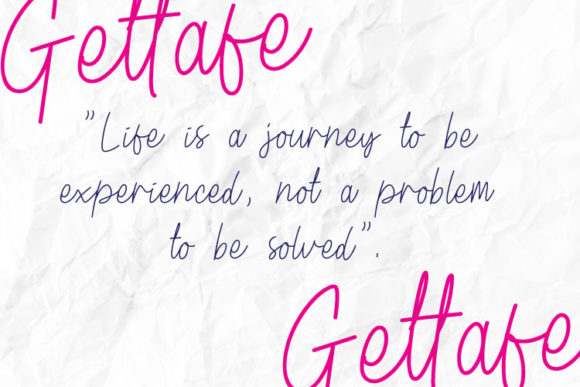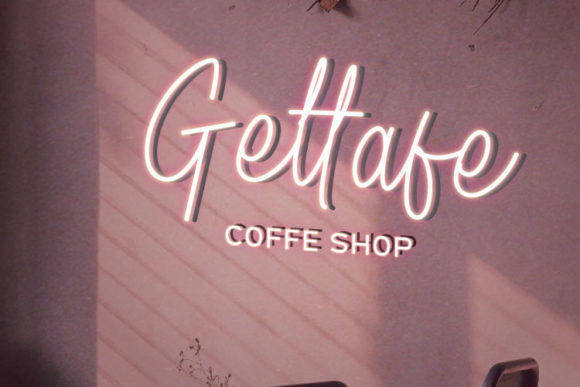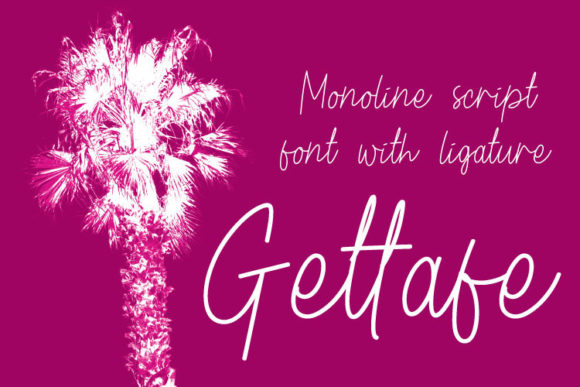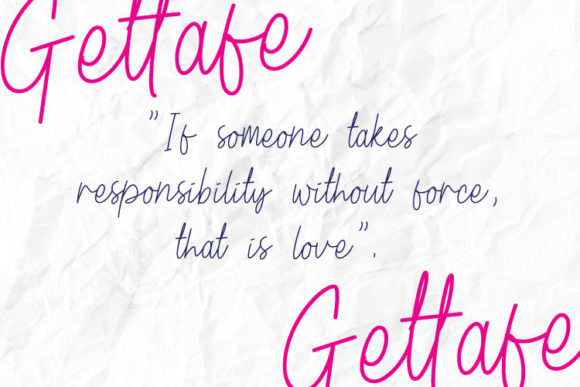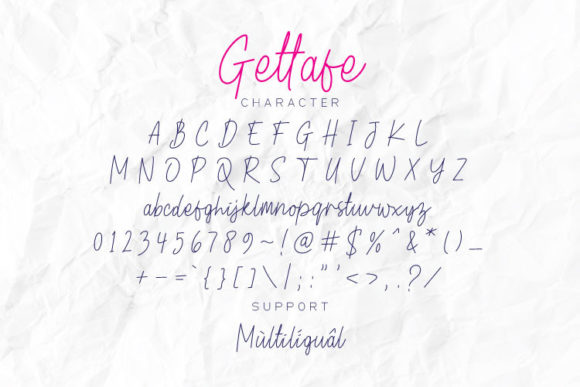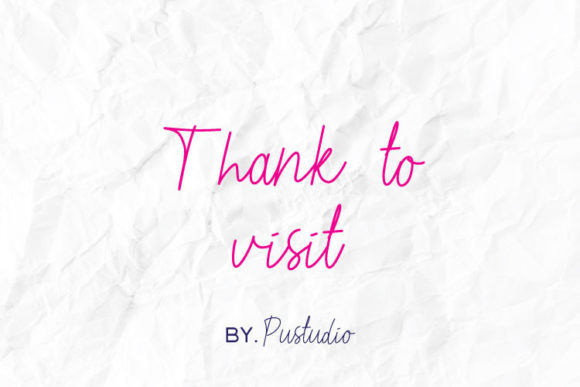
Introducing Gettafe Font: Elevate Your Designs with Elegance and Style
In the world of typography, a font can make or break the visual appeal of a design. For those seeking a touch of sophistication and refinement, Gettafe Font is an exceptional choice. This lovely, stylish, and thin lettered script font is specifically crafted to infuse elegance and class into your designs. Whether you’re a designer, crafter, or simply someone who appreciates beautiful typography, Gettafe Font is sure to captivate your audience.
The Essence of Gettafe Font
Gettafe Font is a meticulously designed script font that embodies the perfect blend of style, sophistication, and elegance. Its thin lettering and flowing curves create a sense of refinement, making it an ideal choice for designs that require a touch of luxury. This font is particularly suited for projects where a high-end look is desired, such as branding, packaging, and editorial design.
Key Features of Gettafe Font
• Thin Lettered Script Font: Gettafe Font boasts a delicate and refined appearance, perfect for creating sophisticated designs.
• Elegant and Classy: The font’s flowing curves and precise lines evoke a sense of luxury and refinement.
• Beautiful and Refreshing: Gettafe Font adds a touch of freshness to your designs, making them stand out from the crowd.
• Crafted for Designers and Crafters: This font is specifically designed to meet the needs of designers and crafters seeking high-quality typography.
Uses of Gettafe Font
Gettafe Font is a versatile typography solution that can be applied to a wide range of design projects, including:
• Branding and Logo Design: Create a lasting impression with a sophisticated logo that exudes elegance and style.
• Editorial Design: Elevate your publications, such as magazines, newspapers, and books, with refined typography.
• Packaging Design: Add a touch of luxury to your product packaging and make it stand out on store shelves.
• Digital Design: Use Gettafe Font in digital projects, such as website design, social media graphics, and presentations.
Benefits of Using Gettafe Font
By incorporating Gettafe Font into your designs, you can:
• Enhance Visual Appeal: Add a touch of elegance and sophistication to your designs.
• Establish Brand Identity: Create a consistent and refined visual brand image.
• Increase Engagement: Capture your audience’s attention with beautiful and refreshing typography.
Gettafe Font is a stunning script font that offers a perfect blend of style, elegance, and sophistication. Its thin lettering and flowing curves make it an ideal choice for designers and crafters seeking to elevate their designs. With its versatility and range of applications, Gettafe Font is sure to become a go-to typography solution for those seeking to add a touch of luxury and refinement to their work.